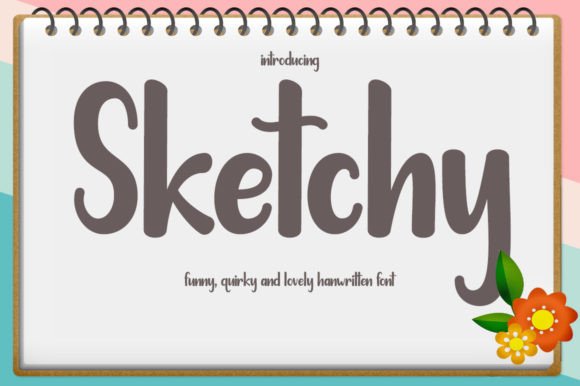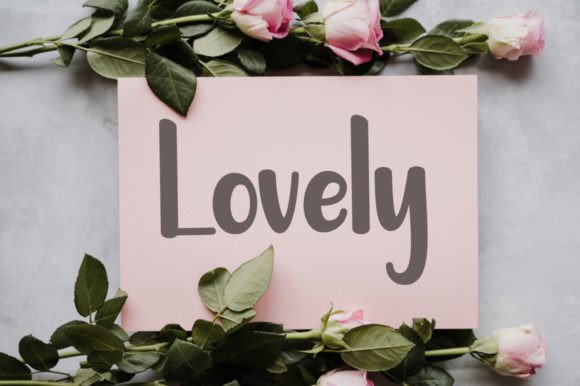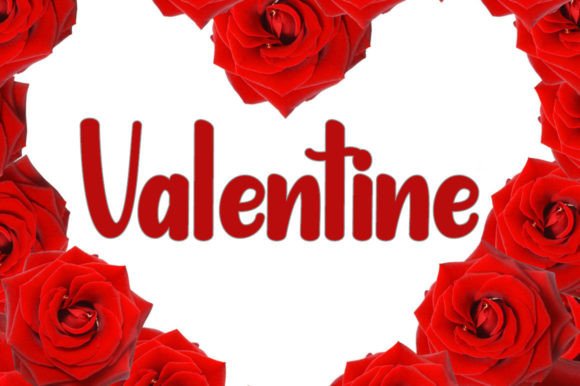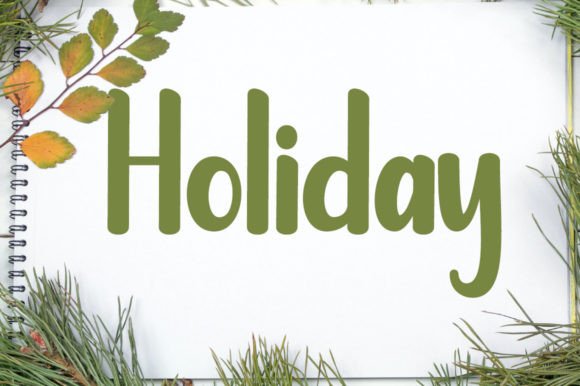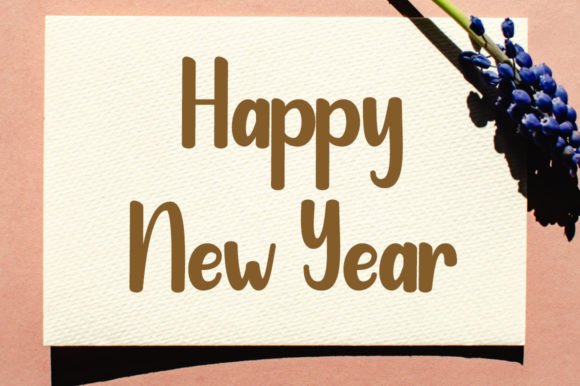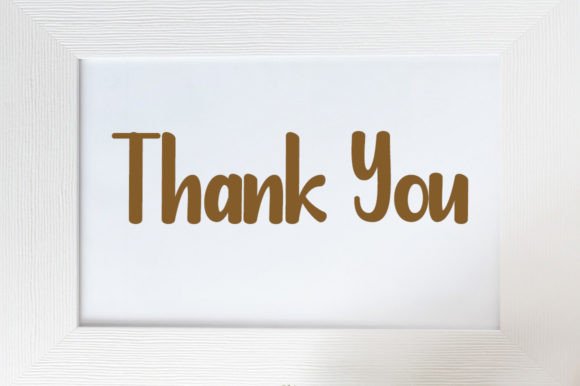
Sketchy Font
About Sketchy Font
Sketchy font is a charming and playful handwritten typeface that adds a quirky and fun touch to your creative projects. Its simple yet delightful style makes it an excellent choice for a variety of uses, from crafts to digital design and presentations. If you’re looking for a font that feels personal and friendly, Sketchy font could become your favorite go-to option.
Quirky and Lovely Design
The Sketchy font offers a handmade, casual look with fun and lively characters. Its quirky style brings personality to any text, making your projects stand out in a cheerful way. Whether used for small captions or bold headlines, this font adds an approachable and unique flair.
Perfect for Crafts and Greeting Cards
This font shines when applied to crafts and greeting cards. The warm, handwritten vibe makes every message feel heartfelt and genuine. Whether it’s a birthday card, thank-you note, or holiday greeting, Sketchyfont helps you convey your sentiments with style.
Great for Digital Design and Presentations
In digital design, Sketchyfont offers versatility and charm. It works well in social media graphics, blog headers, and presentation slides. The friendly and simple appearance ensures that your content remains clear and engaging while adding a touch of fun.
Why Choose Sketchy Font?
Sketchyfont combines simplicity with character, making it ideal for anyone wanting to infuse their designs with a playful and loving spirit. Its ease of use and versatility across different mediums makes it a valuable asset for both personal and professional projects.